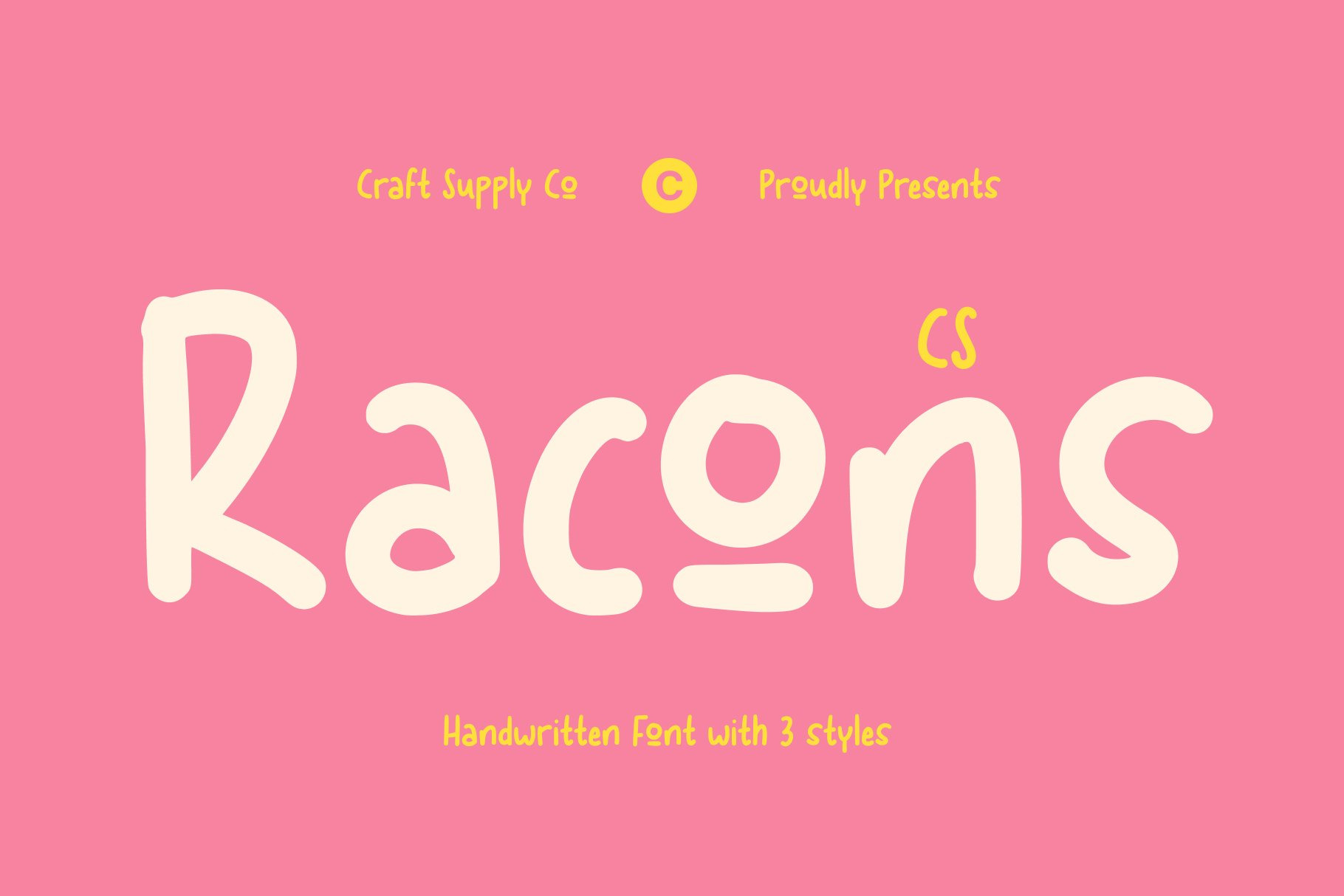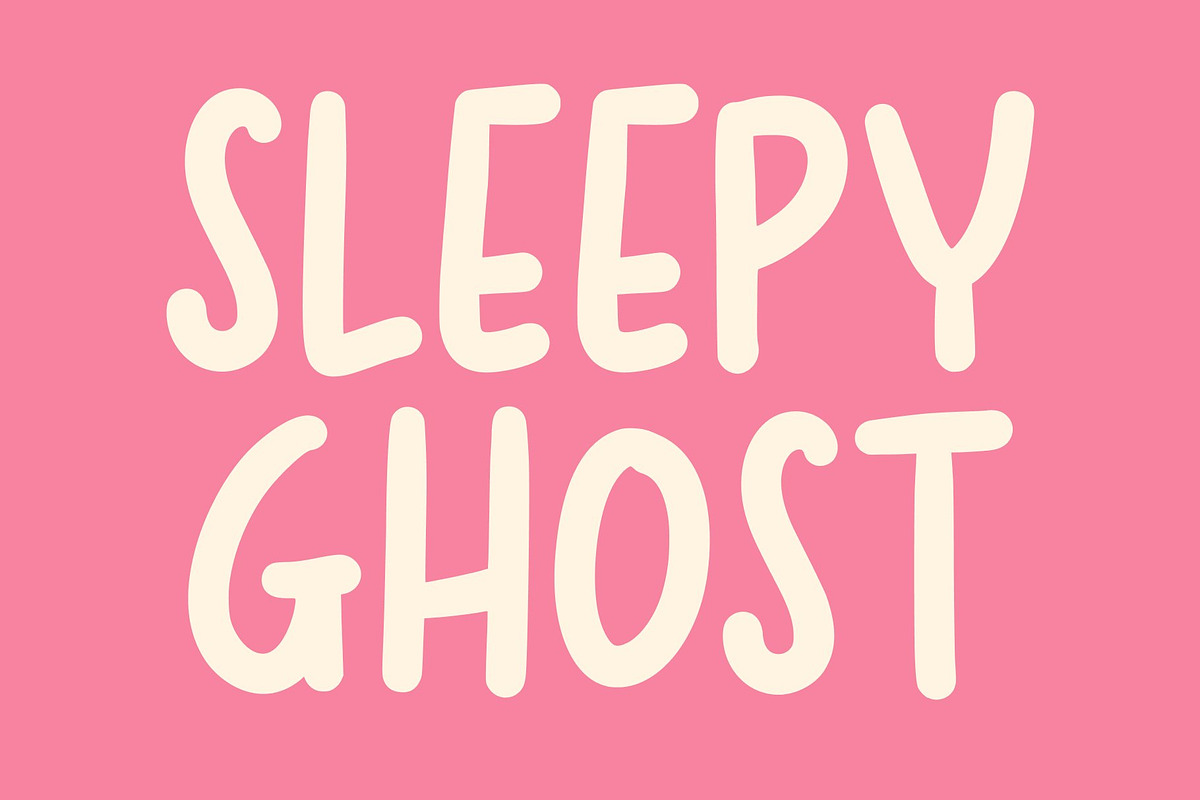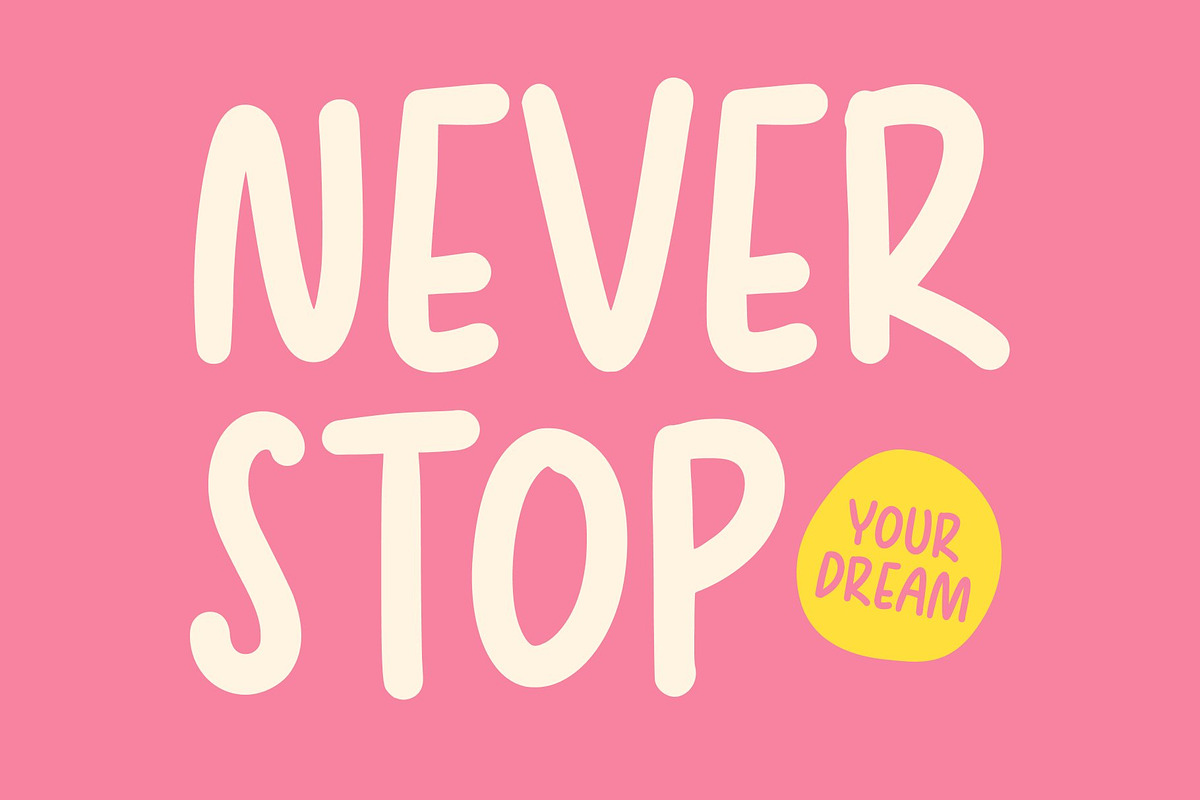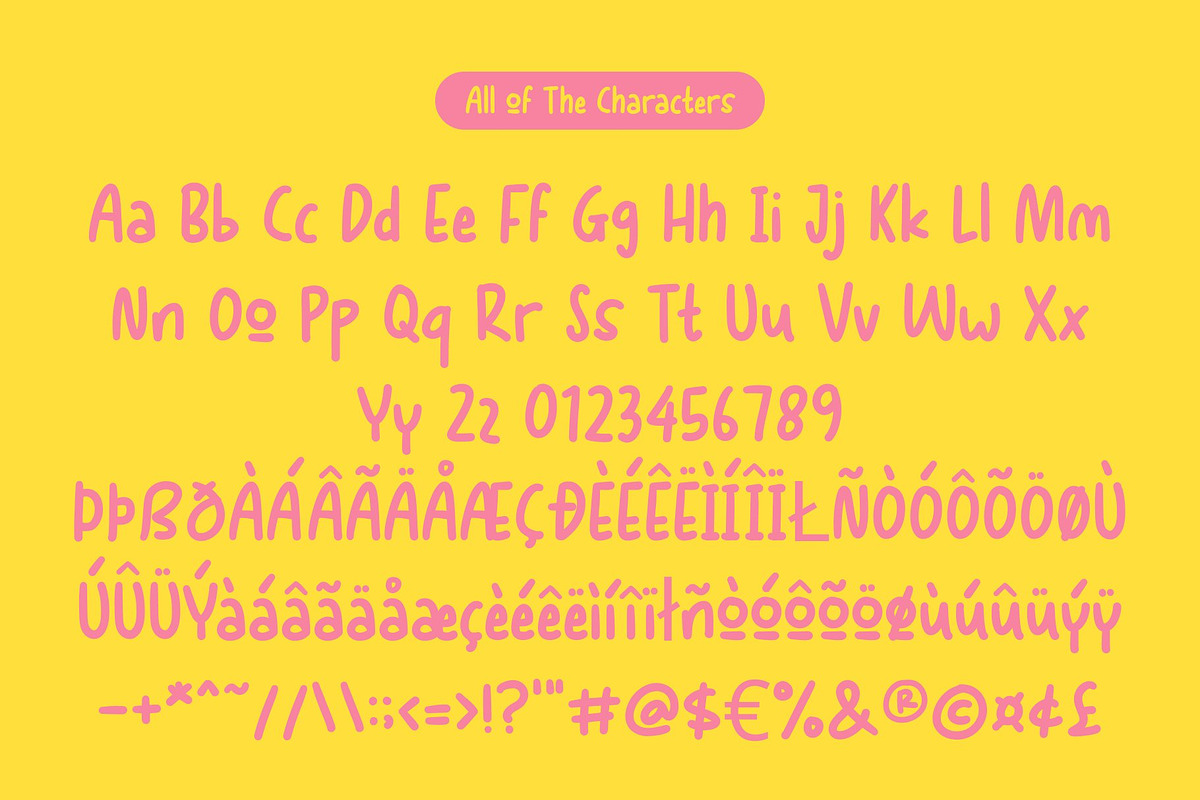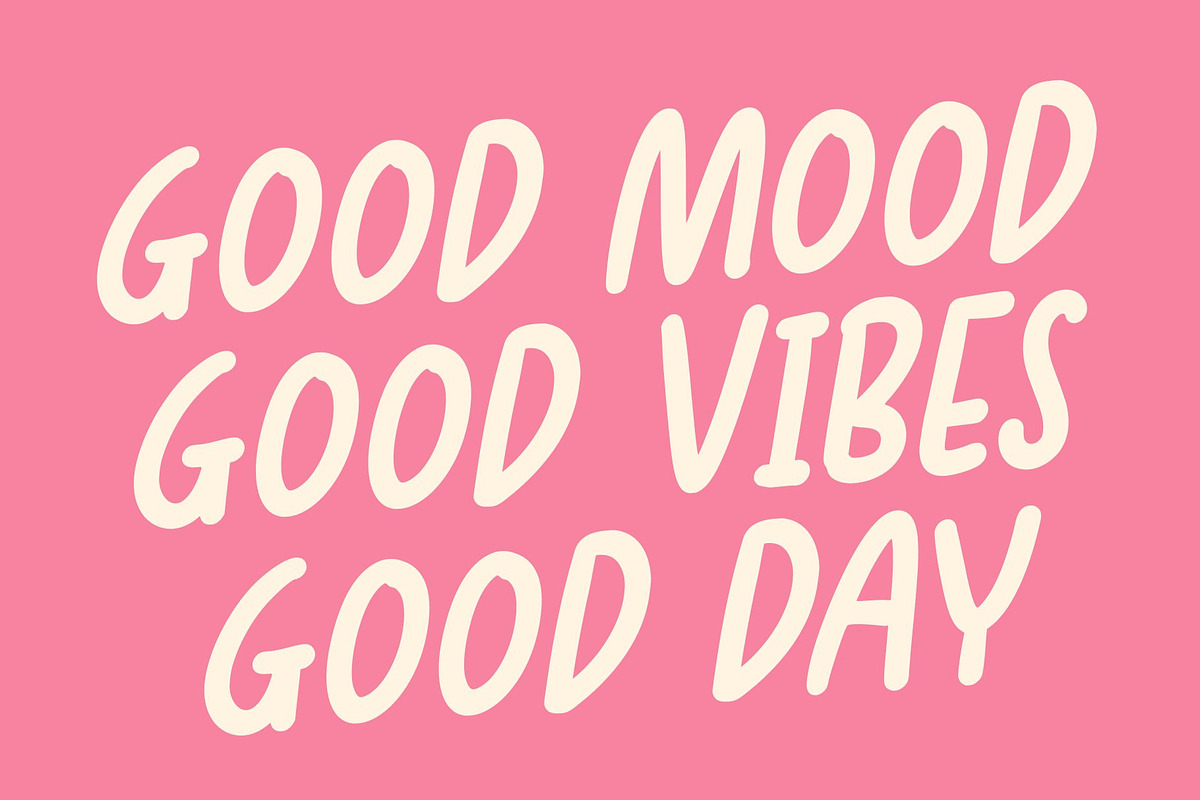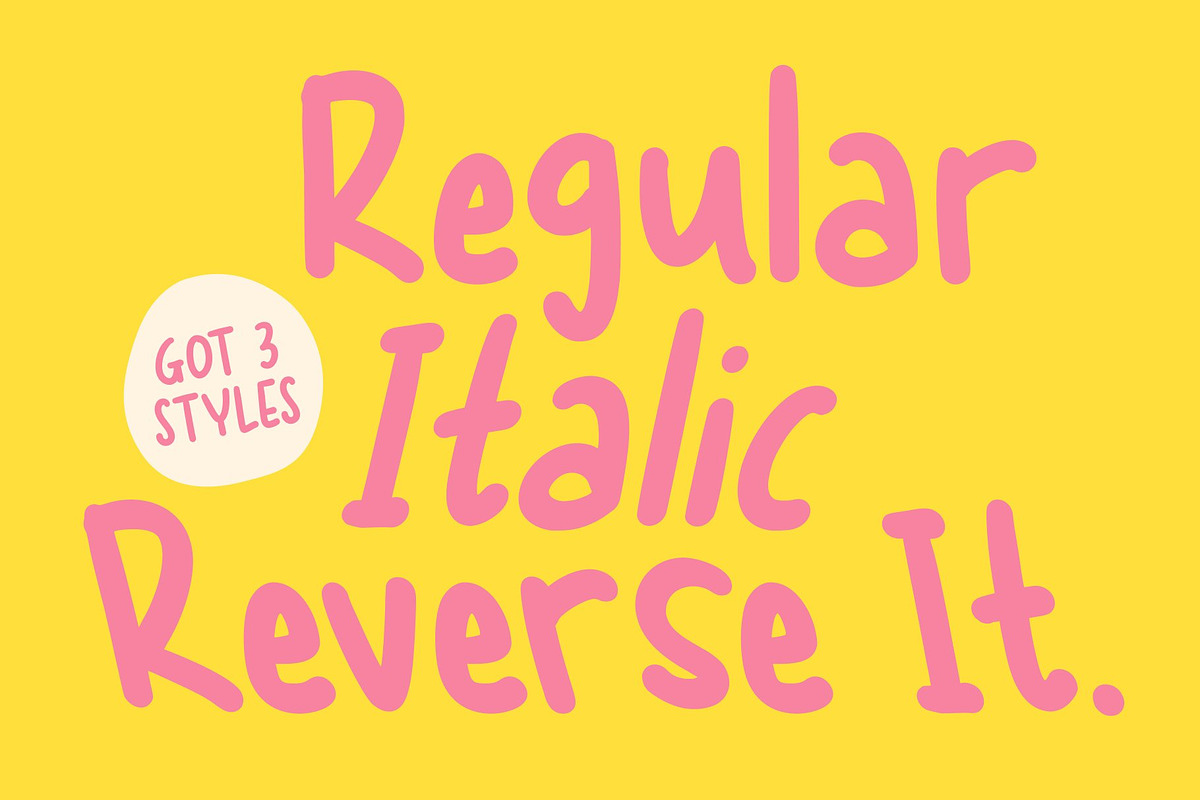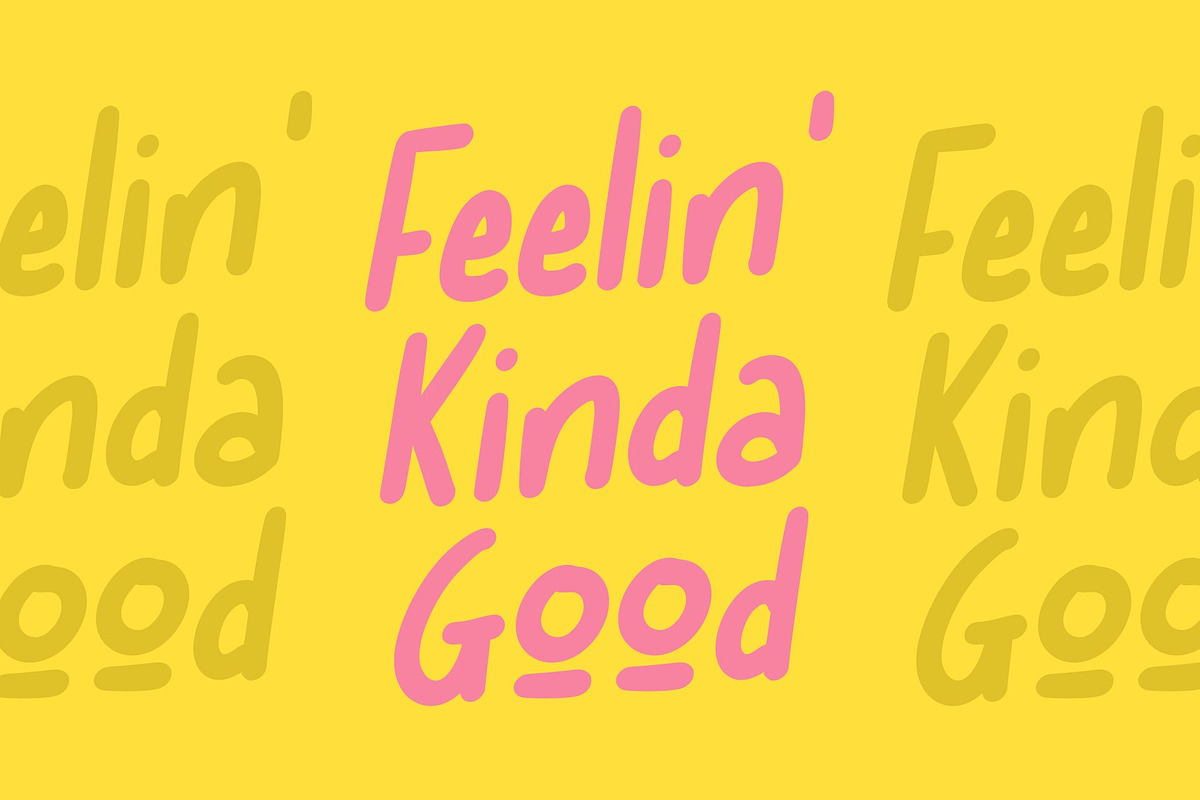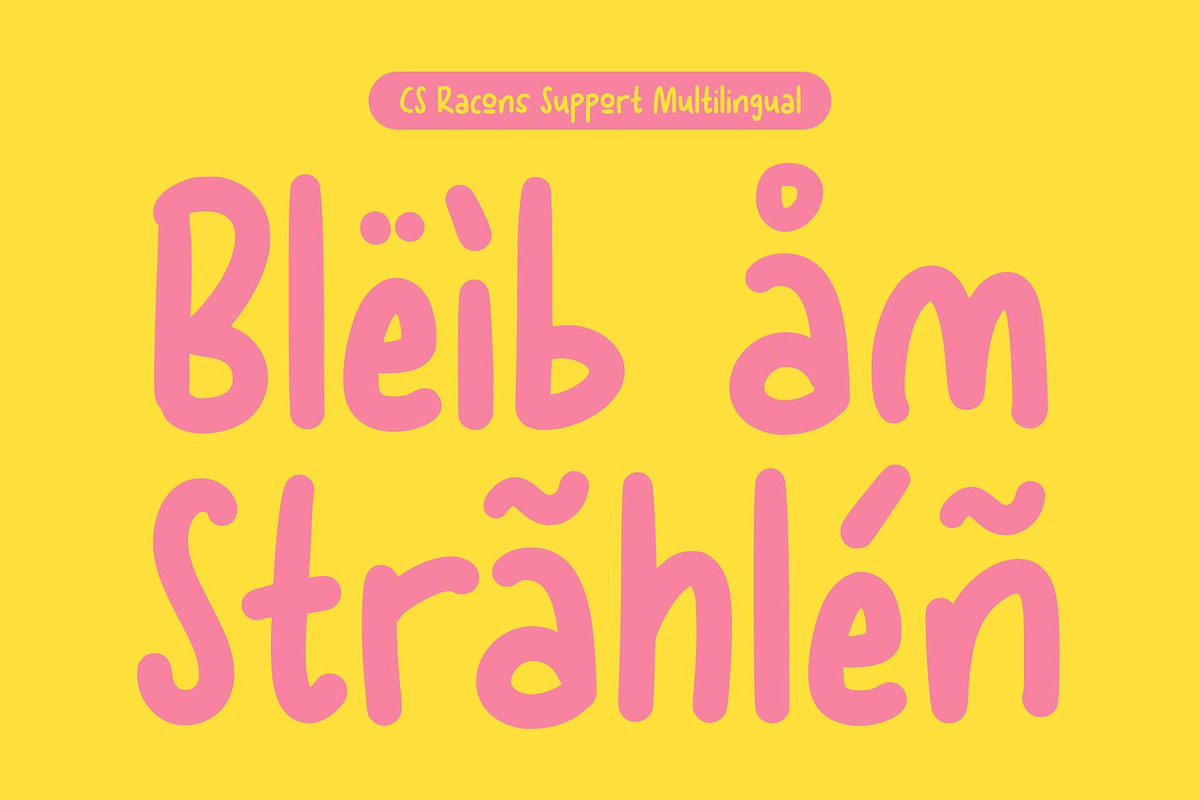
CS Racons – Cute Handwritten Font
CS Racons: Casual Charm for Playful Designs Cute Handwritten Font This is a cute display handwritten font that brings friendly and expressive personality to any design. Its soft, rounded strokes create a casual charm that makes text feel approachable and lively, perfect for projects that need warmth and a playful touch.
Soft and Approachable Letterforms The soft letterforms of this font add a gentle, welcoming tone to your work. Each character feels hand-crafted, giving your designs a natural flow and organic appeal. This makes it ideal for children’s projects, lifestyle branding, or any context where a friendly, personal impression is desired.
Versatile for Creative Projects This font adapts effortlessly to a variety of creative applications. From posters and invitations to social media graphics and editorial layouts, it brings consistency and style without sacrificing readability. Its playful energy ensures your message connects with audiences in an engaging way.
Expressive and Playful Design With its handwritten charm and soft curves, this font conveys personality and creativity. Perfect for fun and imaginative projects, it enhances text with a casual, handcrafted feel, making it suitable for branding, posters, editorial design, or any creative work that seeks to evoke joy and approachability.
- CS Racons Regular
- CS Racons Italic
- CS Racons Reverse Italic